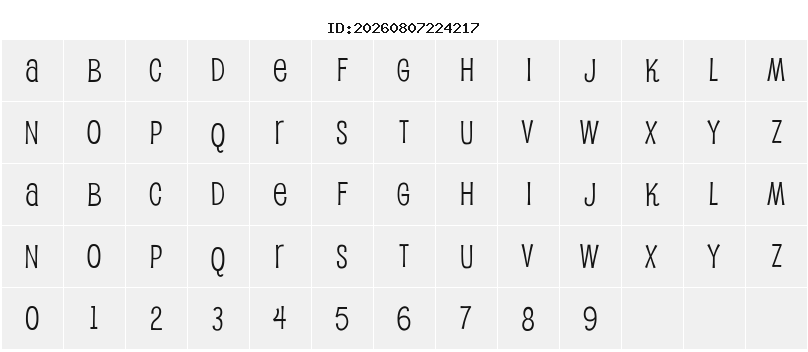
Pupcat Preview
• Font Name: Pupcat
• Font ID: Pupcat
• Full Font Name: Pupcat
• Version: Version 1.1; 2001
• PostScript Name: Pupcat
• Character Count: 285
About Pupcat.ttf
Pupcat.ttf is a modern, elegant sans-serif font designed for ultimate readability and visual harmony. Perfect for branding, headlines, web design, and print materials.